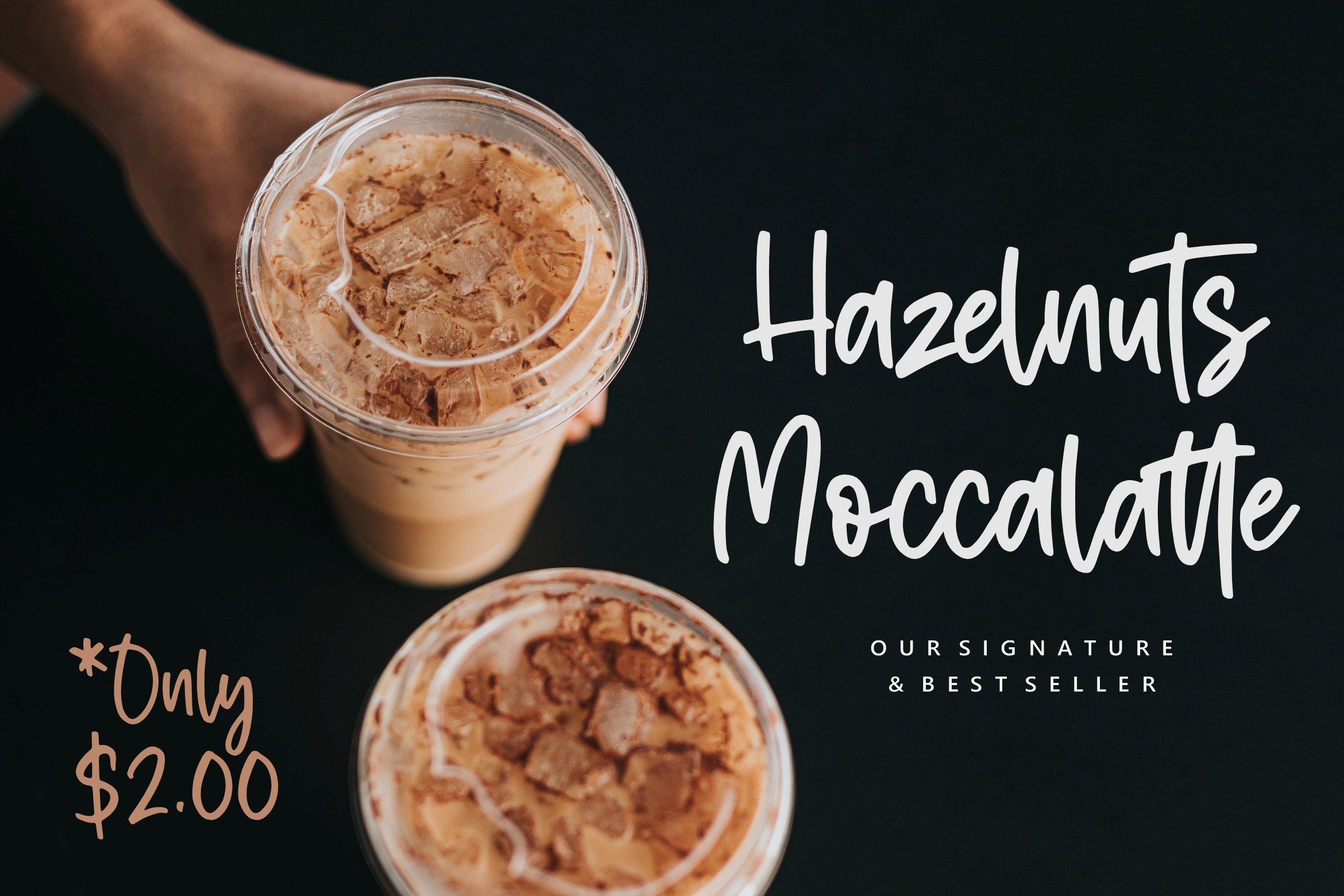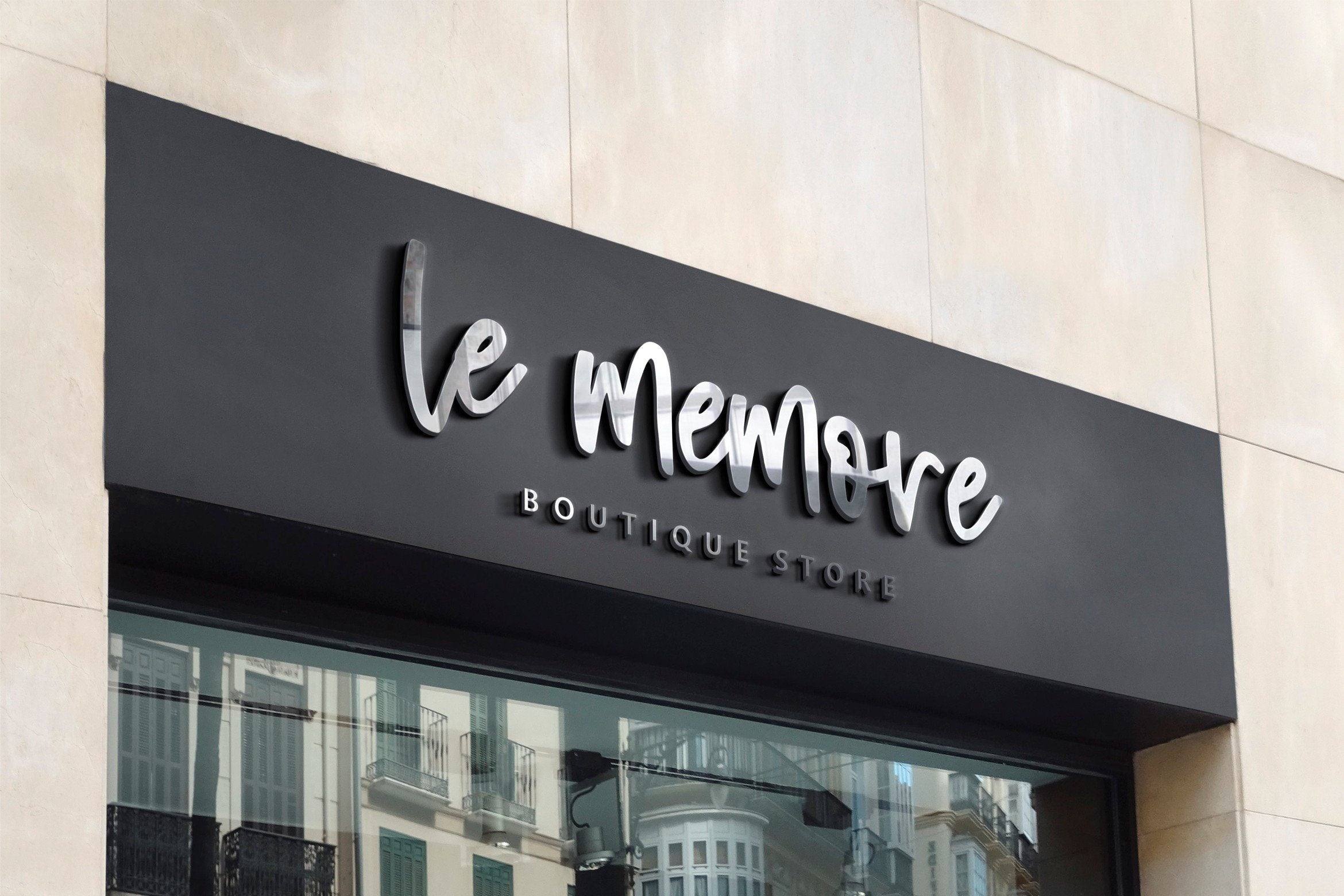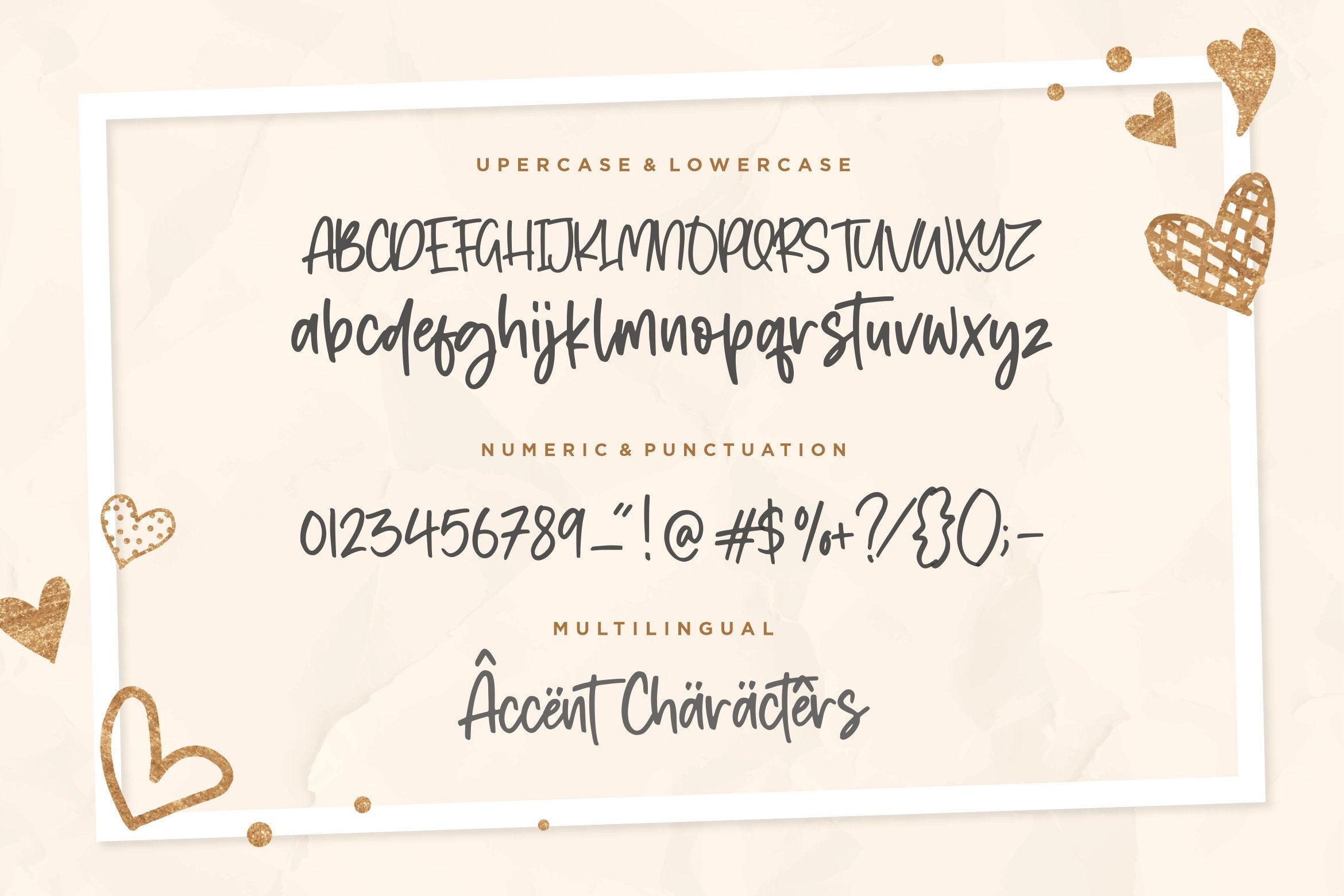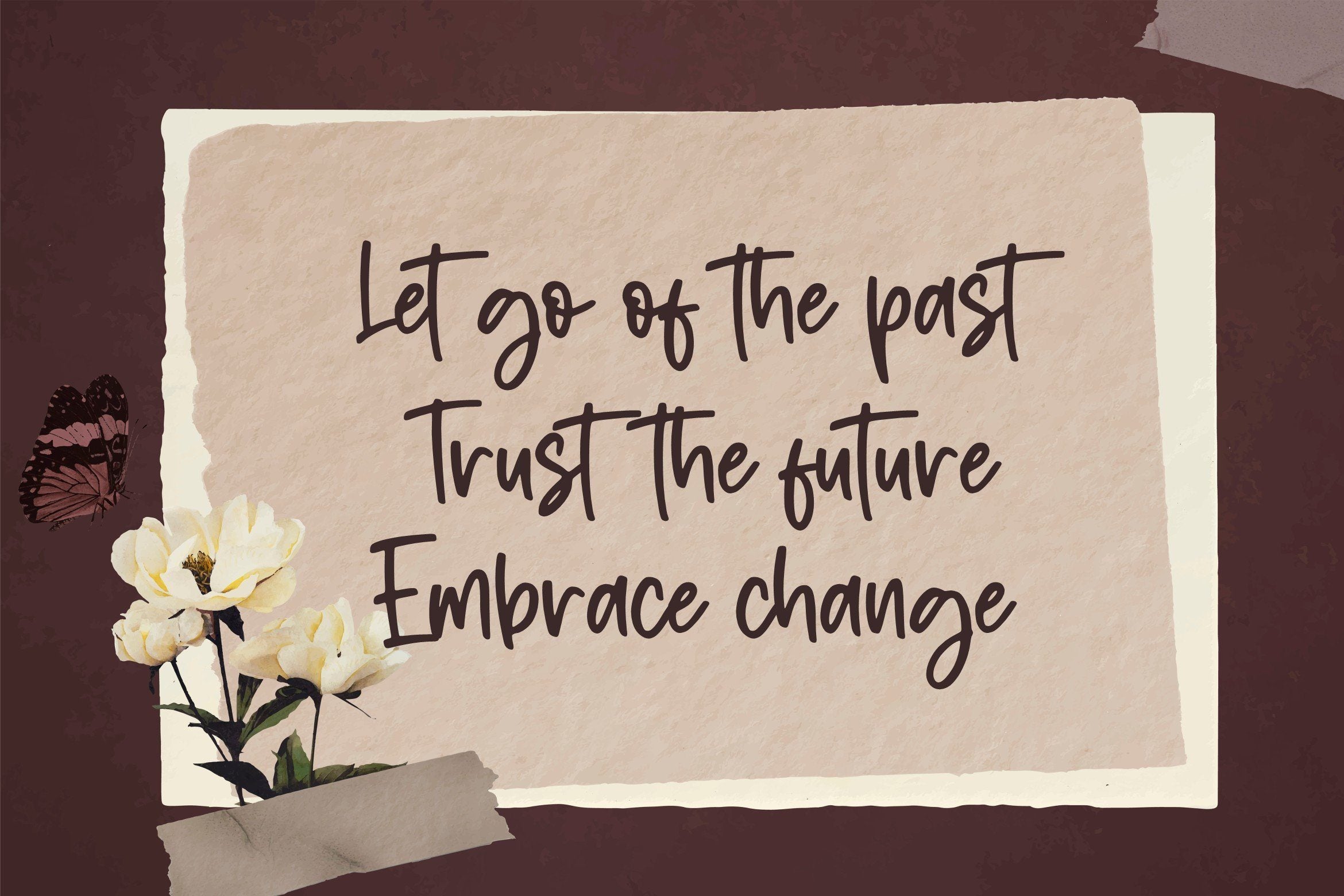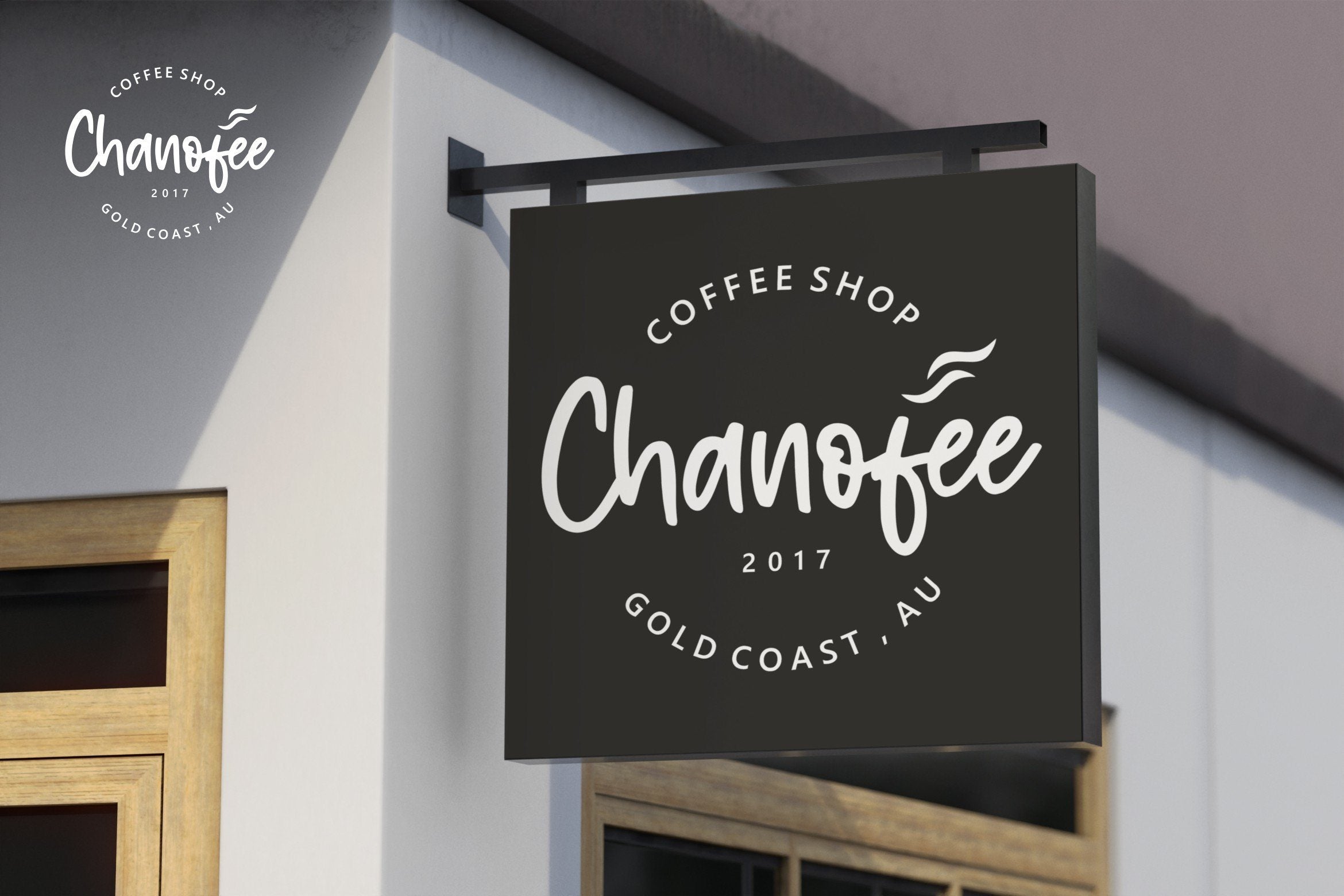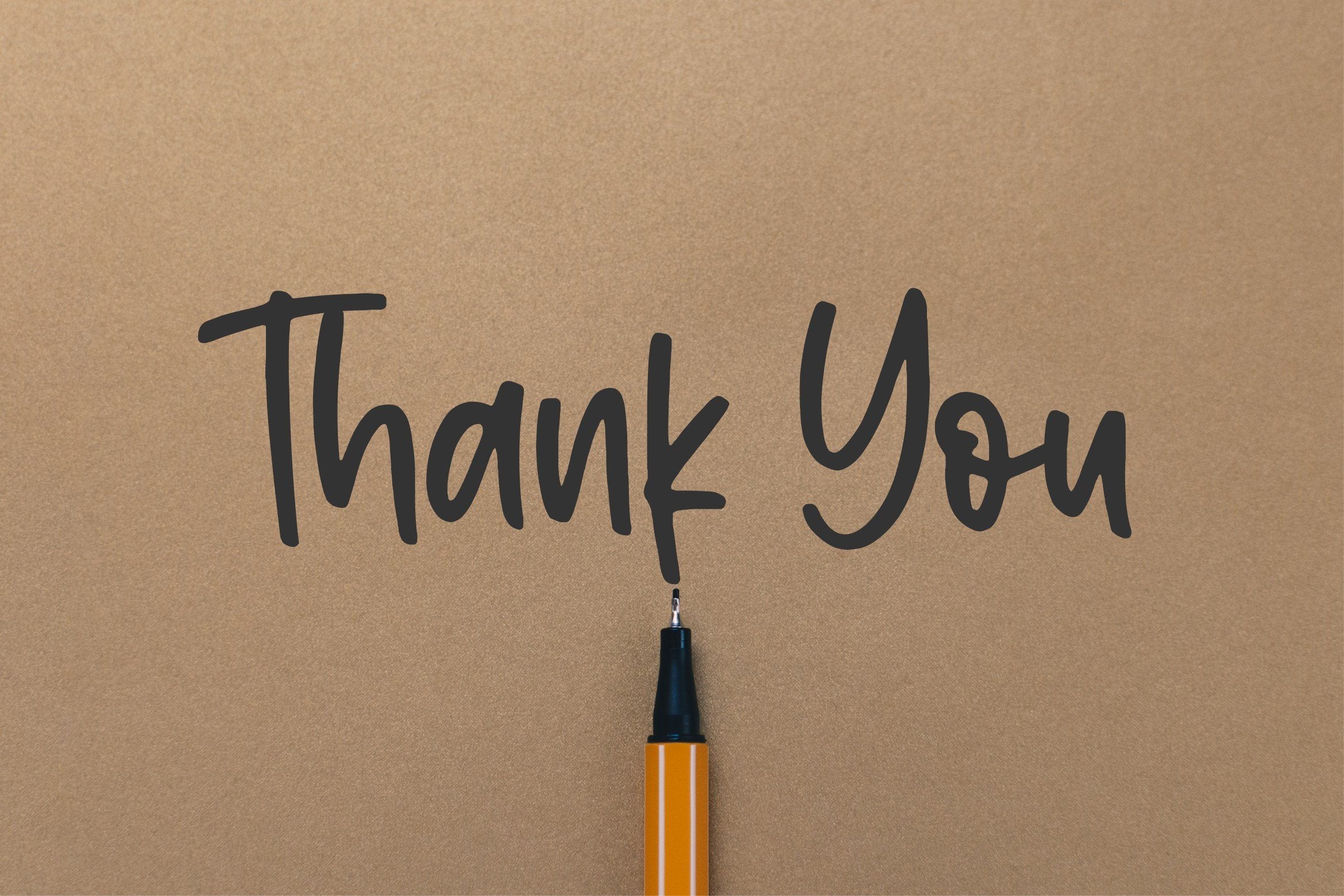
Austrian Modern Calligraphy Font
About Austrian Modern Calligraphy Font
Introducing by Balpirick Studio. Proudly Present, Austrian Font. Austrian is a Modern Calligraphy Font. Austrian Script is a sweet and delicate handwritten font. Dainty and joyful, this font will be ideal for writing wedding invitations, cards or any other design that may need a romantic, personalized touch! This font includes TTF, OTF and WOFF, Austrian also multilingual support. Enjoy the font, feel free to comment or feedback, send me PM or email. Thank you!